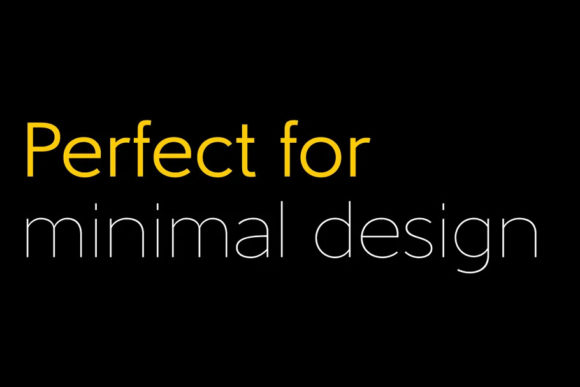
Discover the Versatility of General Font: A Modern Sans Serif Typeface
In the world of typography, a well-designed font can make all the difference in the aesthetic and effectiveness of a design project. One font that has been gaining attention in recent years is General Font, a sans serif font family designed by Juraj Chrastina. With its clean lines, subtle nuances, and human touch, General Font has become a popular choice among designers and crafters. In this article, we’ll explore the features and benefits of General Font and why it’s a great addition to any design project.
The Inspiration Behind General Font
General Font is inspired by classical fonts from the early 20th century, which were known for their simplicity, elegance, and timelessness. However, instead of merely replicating these traditional typefaces, Chrastina aimed to create a font that rides the line between traditional and modern styles. The result is a font that exudes a sense of sophistication and versatility, making it suitable for a wide range of design applications.
Key Features of General Font
General Font is a sans serif font family that consists of five styles, each with its own unique characteristics. The font family is designed to provide a clean and neutral look, making it an excellent choice for designers who want to create a subtle yet effective design. Some of the key features of General Font include:
- Five styles: General Font comes in five lightweights, allowing designers to choose the perfect style to suit their design needs.
- Pure geometry with a human touch: The font’s design combines geometric shapes with subtle human touches, creating a unique and recognizable look.
- Neutral and versatile: General Font is designed to be neutral and versatile, making it suitable for a wide range of design applications, from digital media to print materials.
The Benefits of Using General Font
So, why should designers and crafters choose General Font for their projects? Here are some benefits of using this versatile font:
- Clean and legible: General Font is designed to be clean and legible, making it perfect for body text, headings, and titles.
- Flexibility: With five styles to choose from, designers can use General Font to create a range of designs, from simple and minimalist to complex and layered.
- Timeless: General Font’s classic design ensures that it will remain timeless and relevant, even as design trends evolve.
- Ease of use: General Font is easy to read and works well in a variety of contexts, making it a great choice for designers who want to create a cohesive look.
Who Can Benefit from General Font?
General Font is an excellent choice for a wide range of designers and crafters, including:
- Graphic designers: General Font is perfect for graphic designers who want to create clean and effective designs for clients.
- Web designers: The font’s clean lines and legibility make it an excellent choice for web designers who want to create user-friendly and accessible websites.
- Digital artists: General Font’s versatility and range of styles make it a great choice for digital artists who want to add text to their artwork.
- Crafters: General Font is also suitable for crafters who want to add a personal touch to their handmade projects, such as cards, invitations, and scrapbooking.
General Font is a versatile and modern sans serif font family that offers a unique blend of geometric shapes and human touches. With its five styles, clean design, and timeless look, General Font is an excellent choice for designers and crafters who want to create effective and aesthetically pleasing designs. Whether you’re working on a graphic design project, creating digital art, or crafting handmade projects, General Font is a great addition to your typography toolkit.